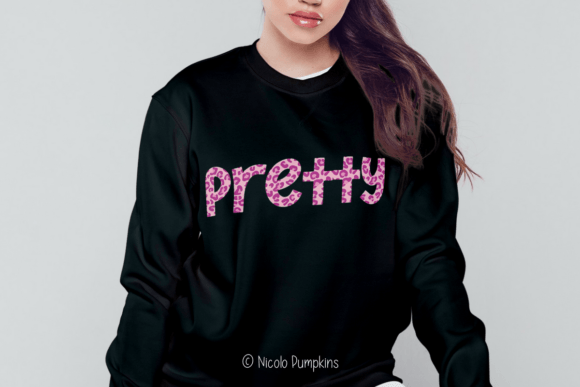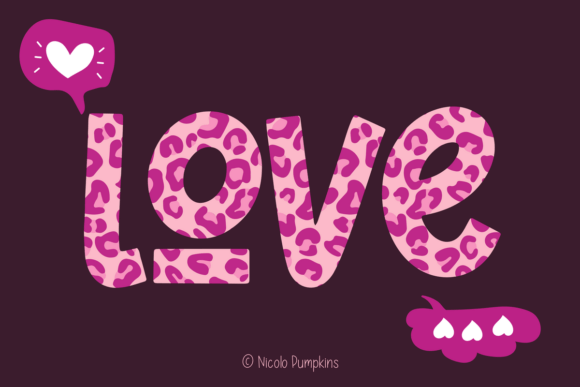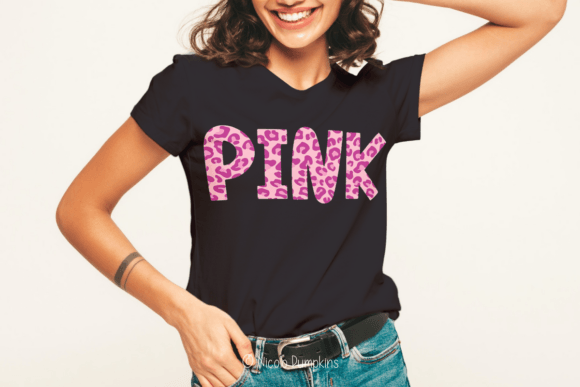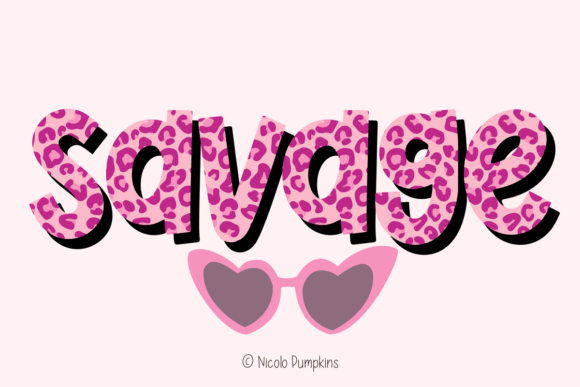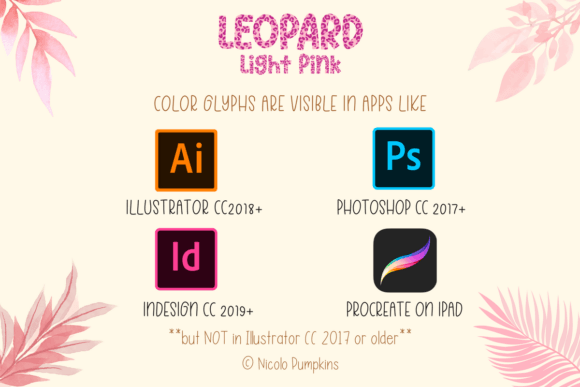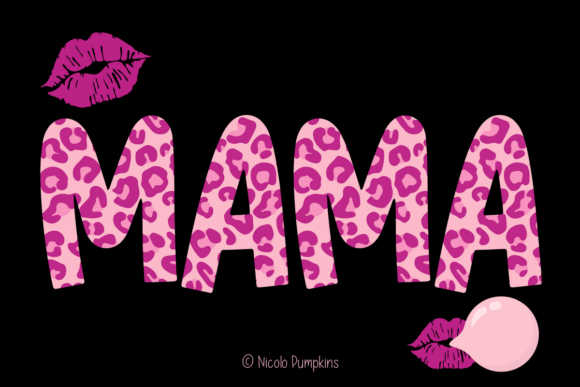
Introduction to Leopard Light Pink Font
Have you ever been brainstorming a creative project and suddenly, the perfect font pops into your head? That’s exactly what happened to many designers when they discovered the Leopard Light Pink Font. This chic, cute, and friendly color font is a game-changer for any design project, especially those targeting a female audience.
Whether you’re designing t-shirts, tote bags, hats, stickers, wedding designs, logos, cards, or quotes, the Leopard Light Pink Font will make your ideas stand out. Its high-quality design and transparent background make it a valuable resource for any designer looking to add a touch of elegance and whimsy to their work. And the best part? This color font is compatible with popular design software like PhotoShop, Illustrator, Silhouette, and Inkscape.
Key Features of Leopard Light Pink Font
- High-quality design resource ideal for creative projects requiring a touch of elegance and sophistication.
- Features a unique, hand-drawn style with intricate details, making it perfect for adding a personal touch to any design project.
- Perfect for use in a variety of creative projects, including invitations, branding materials, and digital graphics.
Honest Review: Leopard Light Pink Font
I recently stumbled upon the Leopard Light Pink Font, and I must say it’s a great addition to any design resource collection. This font is perfect for adding a touch of elegance and whimsy to your creative project.
What works well: ✨ The font is extremely versatile and can be used for a wide range of designs, from blog posts to social media graphics. The high quality of the font ensures that it looks great on any background, including transparent backgrounds.
- Perfect for adding a touch of elegance and whimsy to your design
- High quality and great on transparent backgrounds
- Extremely versatile for various design projects
Overall, I’m quite impressed with the Leopard Light Pink Font. It’s a great addition to any design collection, and I would definitely recommend it for personal or small-scale commercial projects.
Tips for Getting the Most Out of Leopard Light Pink Font
For the best results, use Leopard Light Pink Font on a high-contrast background to make the text stand out. You can also experiment with different font sizes and styles to create a unique and eye-catching design.
Leopard Light Pink Font is perfect for creative projects such as branding, packaging, and marketing materials. Its elegant design and transparent background make it ideal for use in logos, business cards, and other design elements.